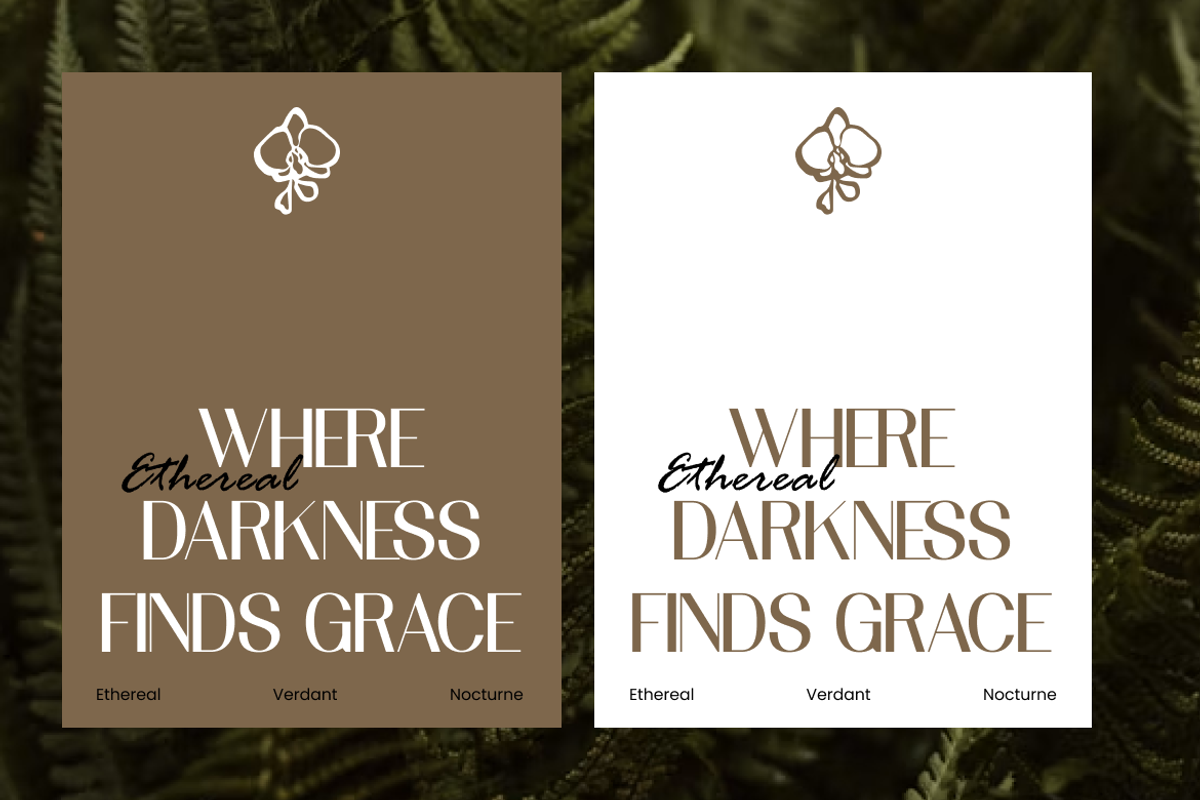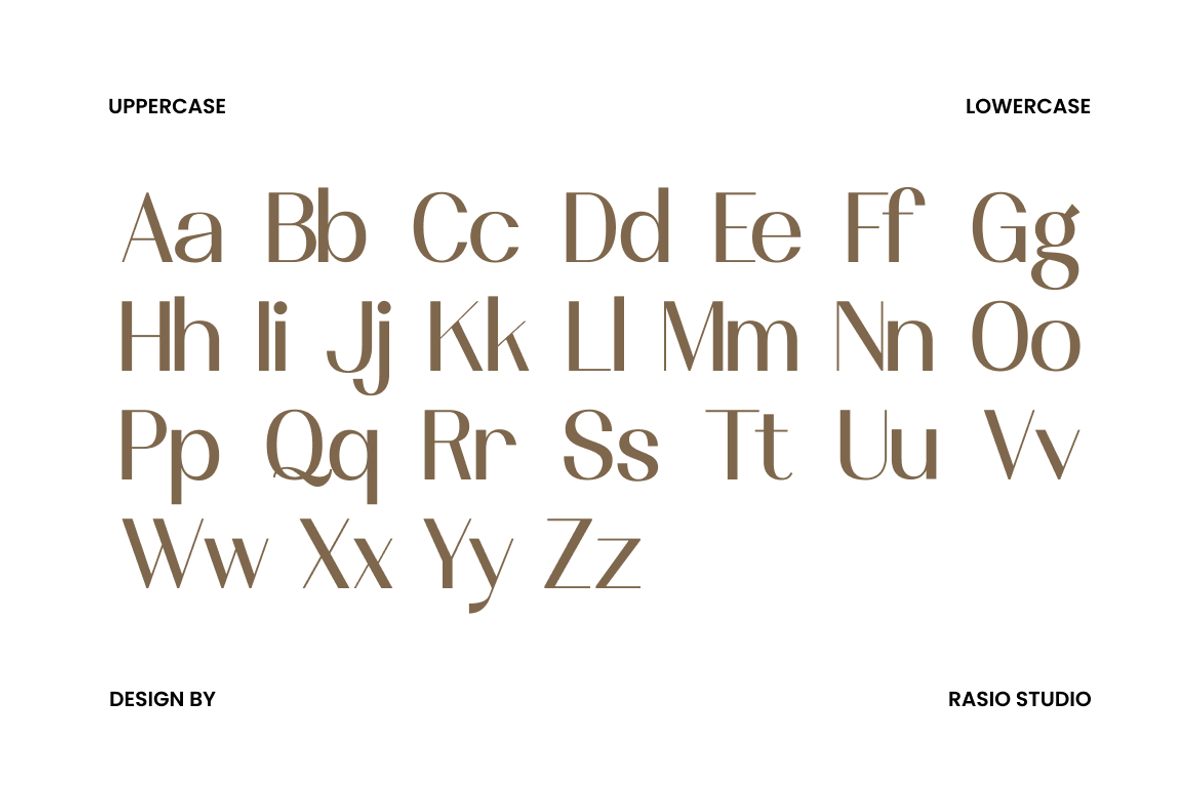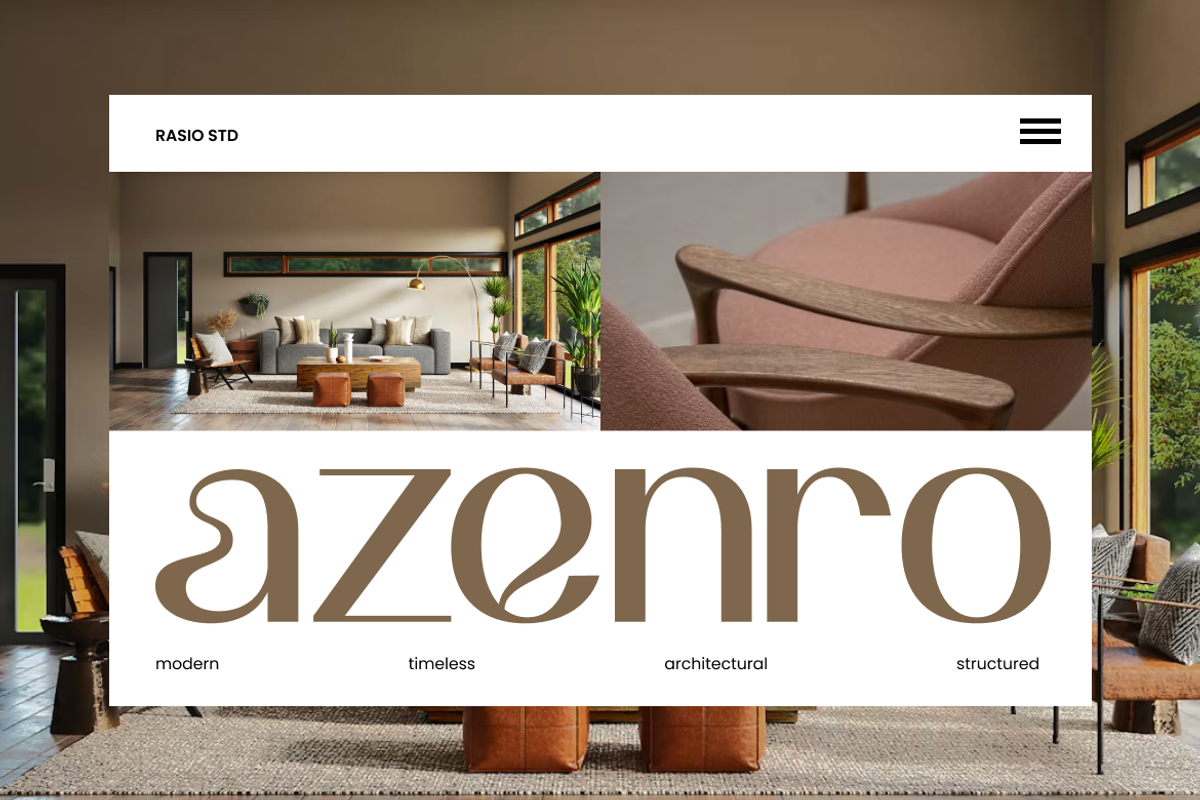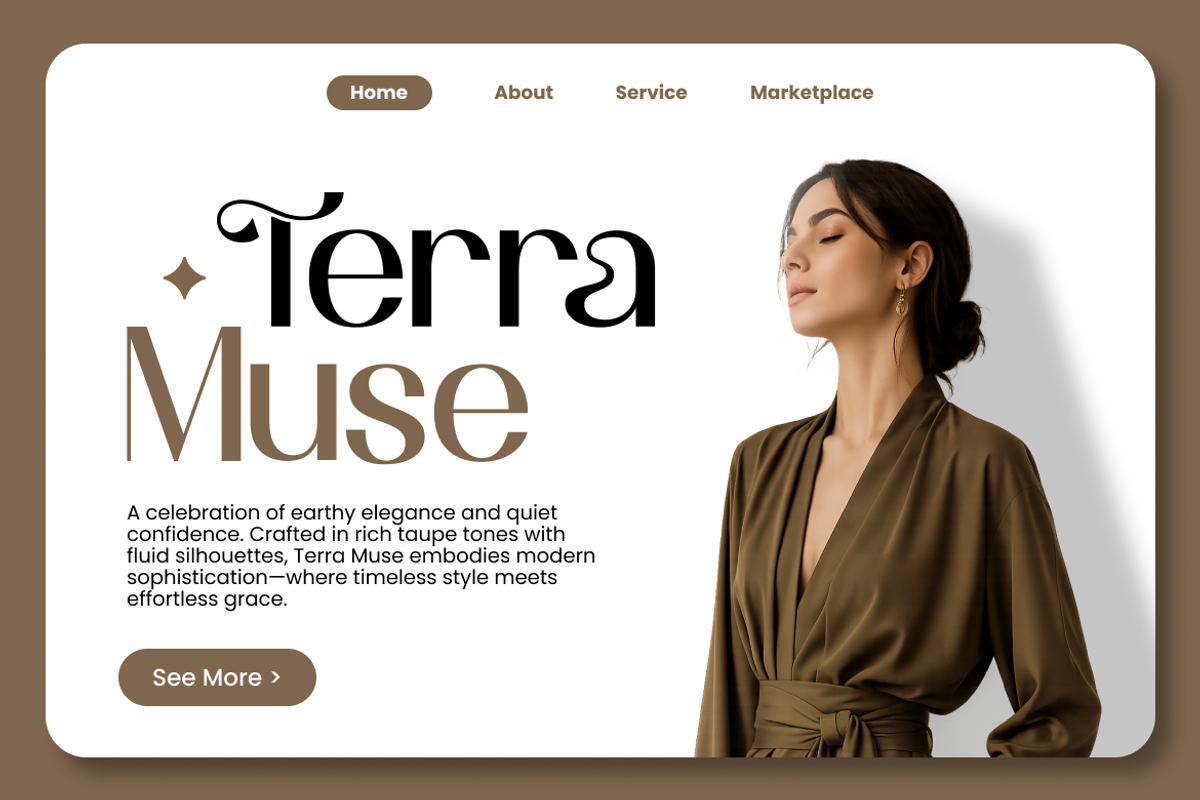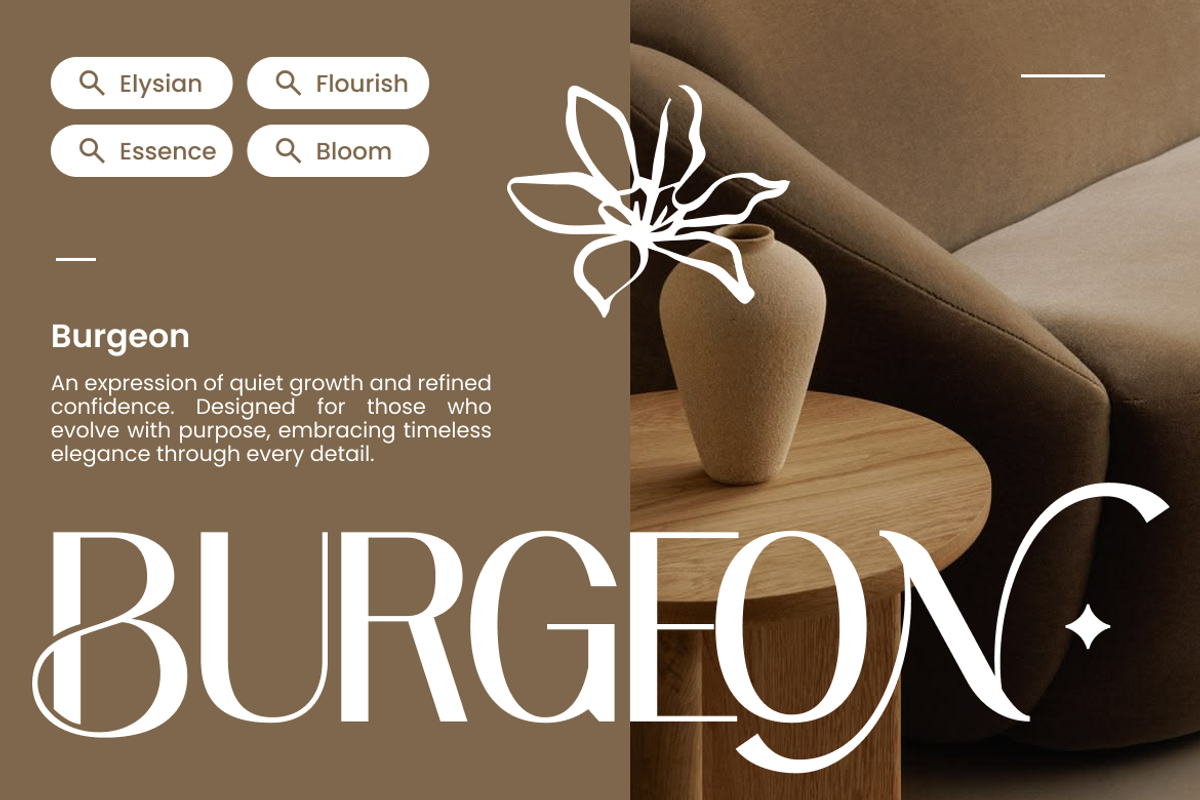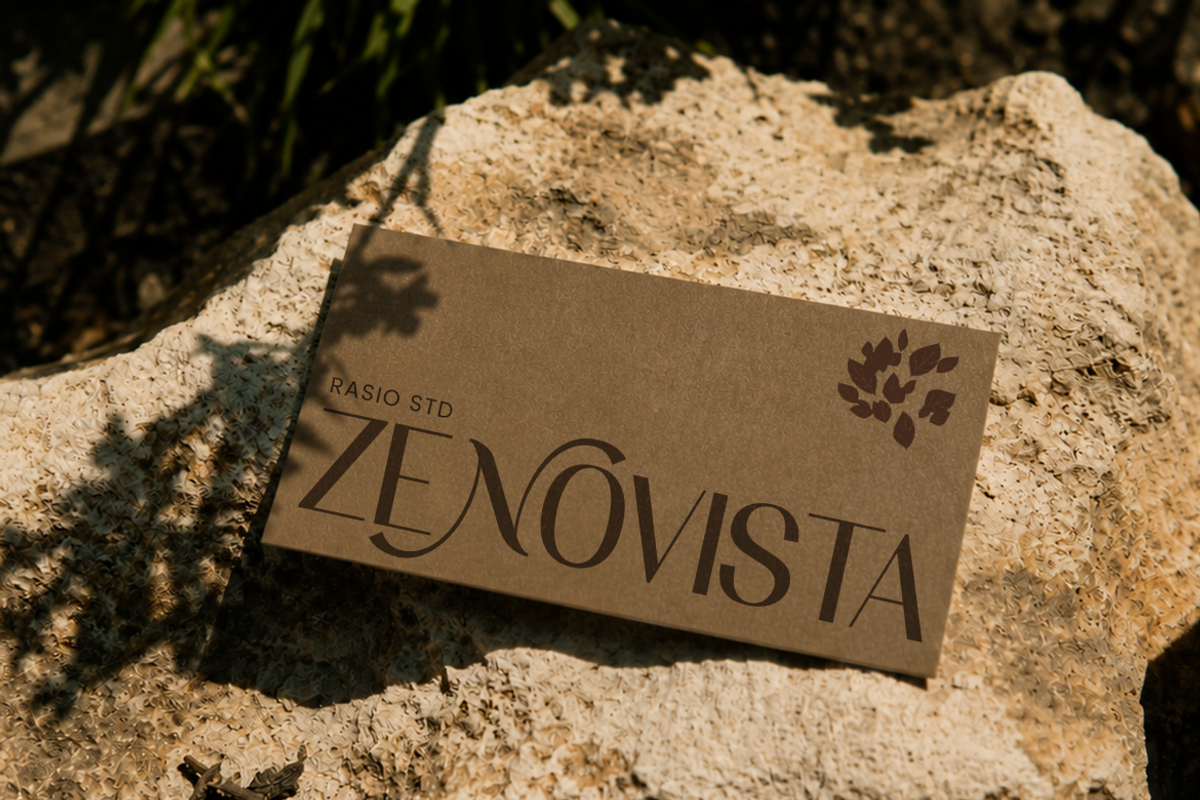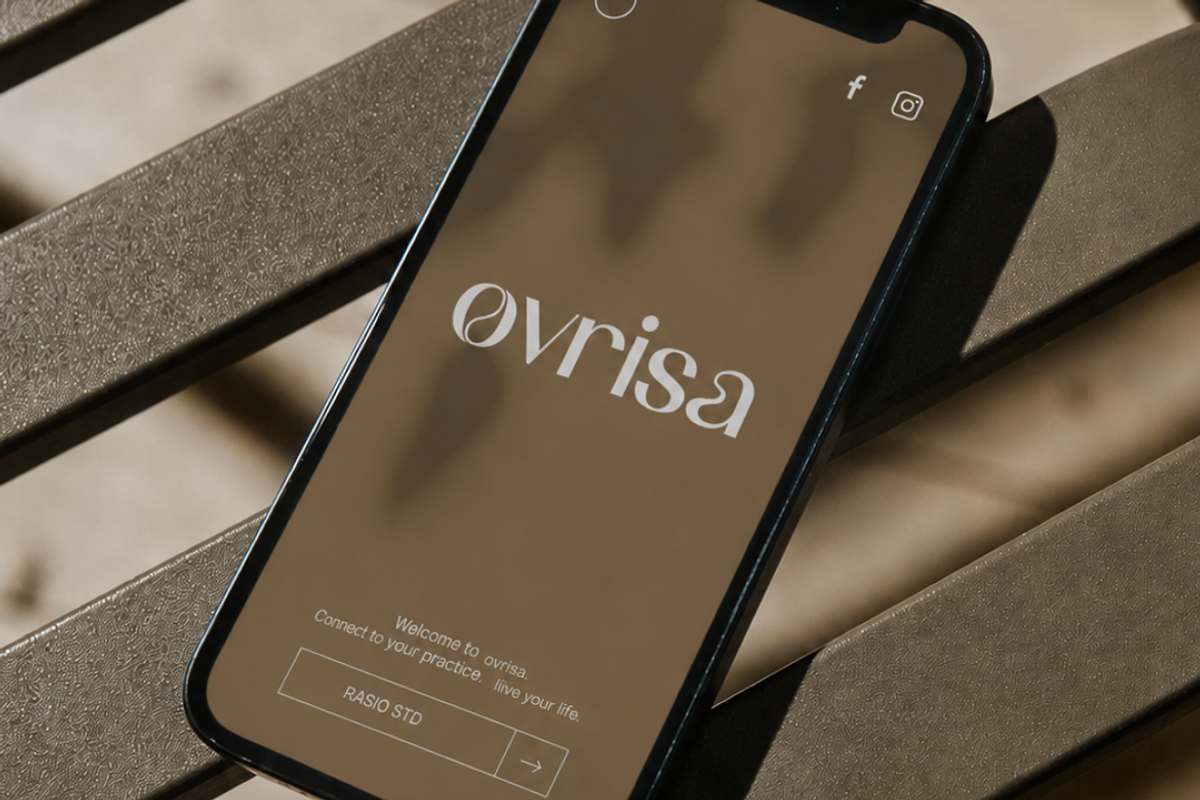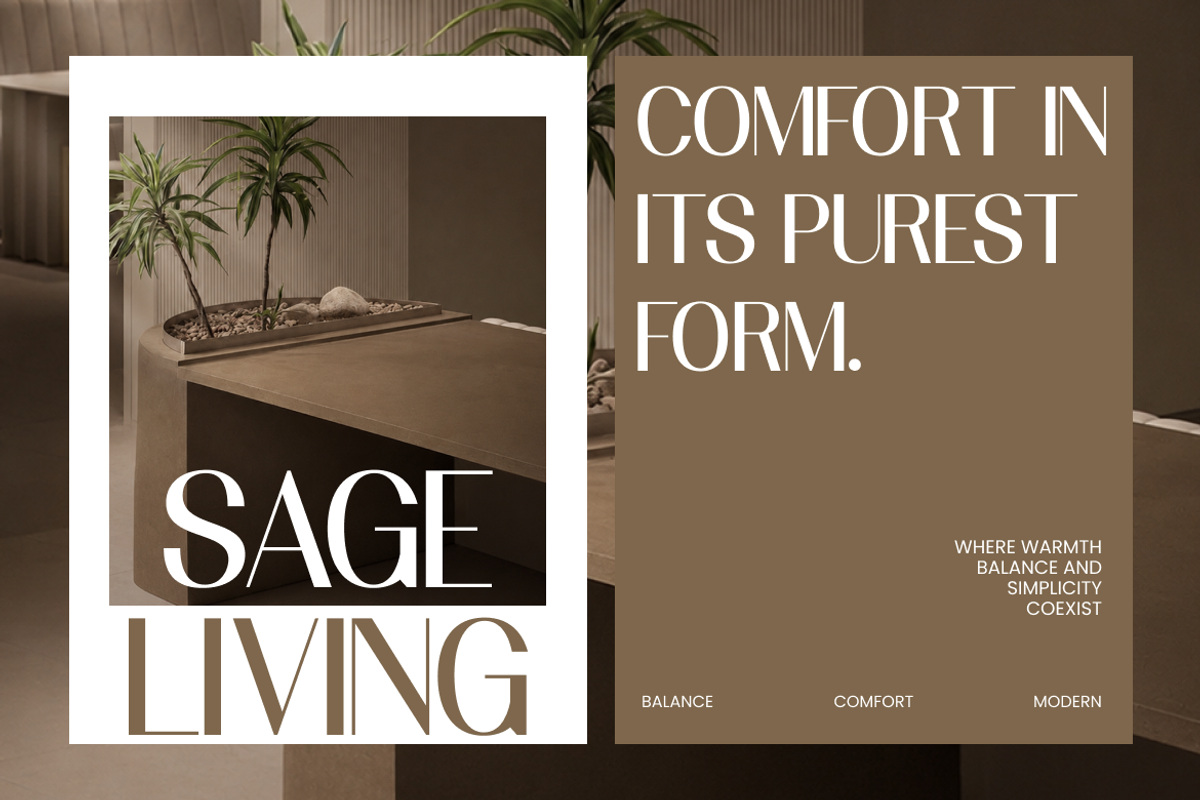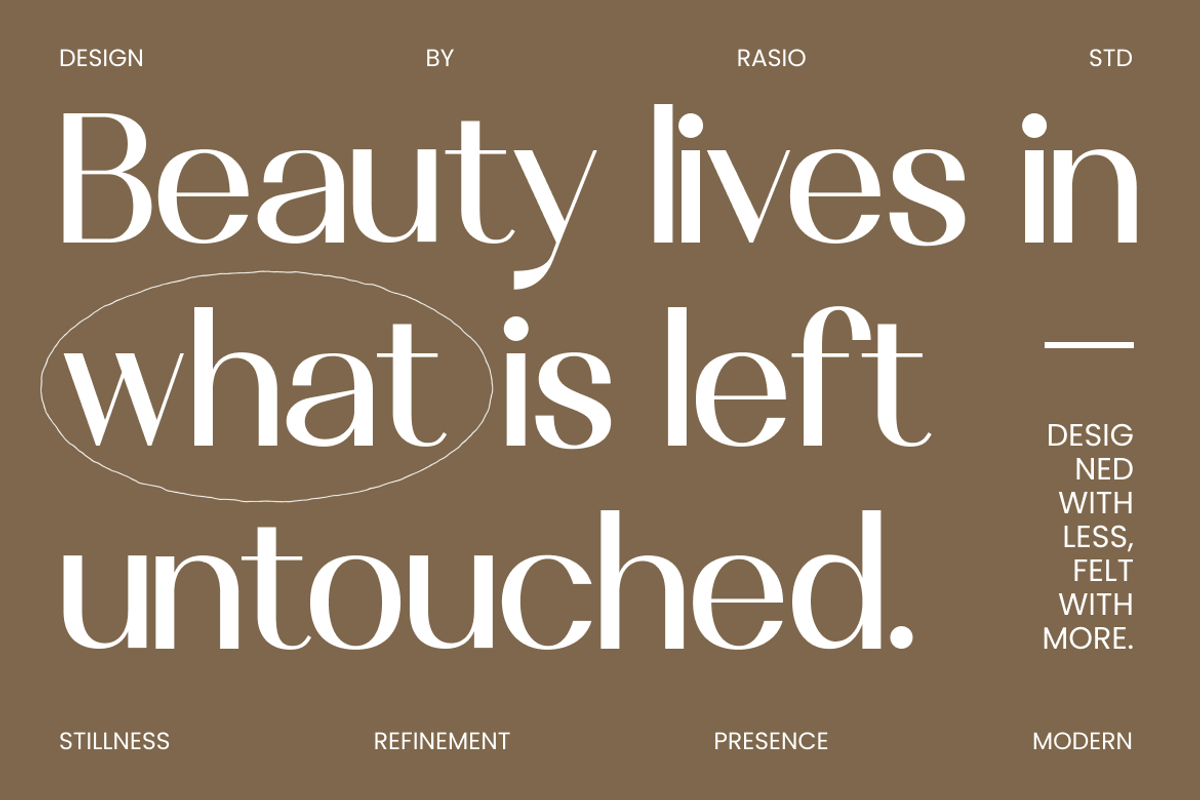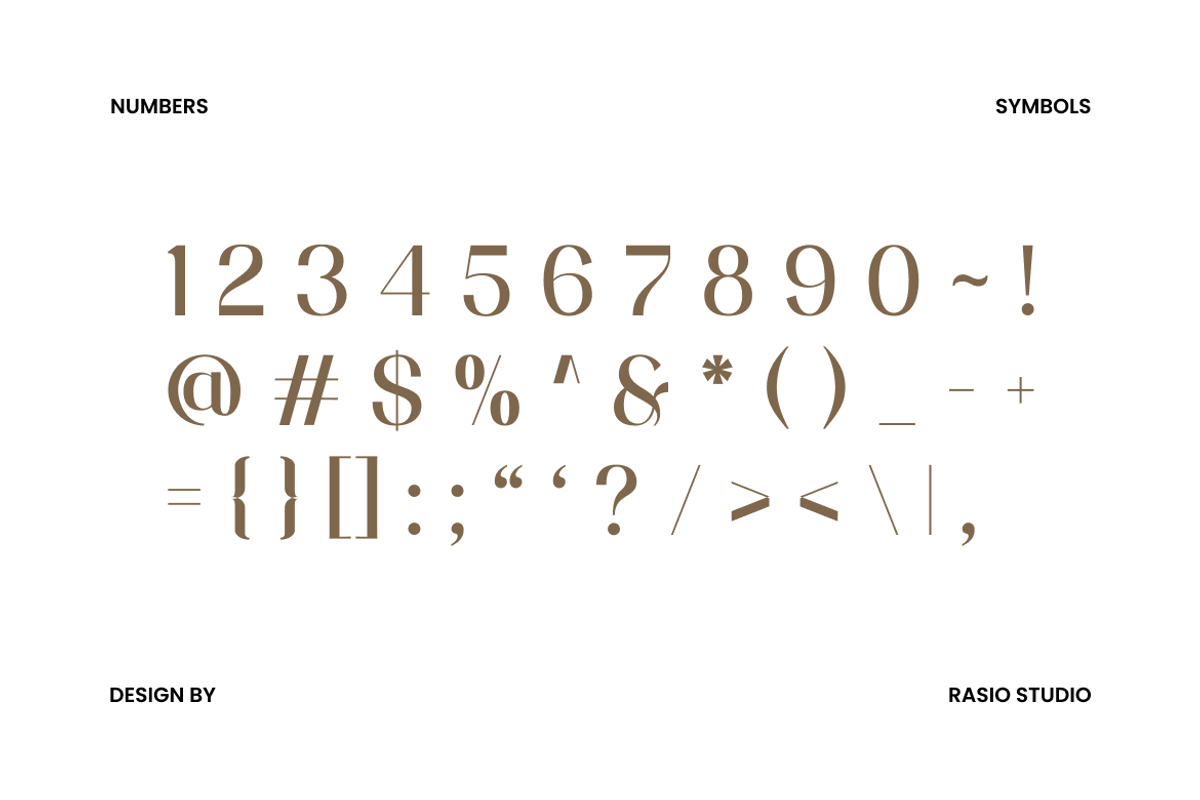
Vermica Modern Elegant Sans Font
Vermica Modern Elegant Sans Fontis a refined contemporary typeface that combines clean geometric construction with graceful high-contrast proportions to create a sophisticated visual identity. The letterforms feature slender vertical strokes, subtly tapered terminals, and smooth rounded curves that produce an elegant rhythm while maintaining exceptional clarity. Carefully balanced proportions, generous counters, and precise spacing allow each character to stand confidently in both large display settings and refined branding applications, giving the typeface a luxurious yet highly versatile personality.
Designed for premium visual communication, Vermica includes uppercase and lowercase characters, numerals, punctuation, and stylistic ligatures, providing the flexibility required for professional creative projects. Its modern structure and elegant detailing make it ideal for luxury branding, editorial publications, fashion campaigns, cosmetic packaging, logo design, website typography, invitations, and high-end marketing materials. Whether used for sophisticated headlines, minimalist visual identities, or premium digital experiences, Vermica delivers polished typography with timeless elegance across both print and screen environments..
Elegant high-contrast sans serif with refined contemporary proportions
Gracefully curved letterforms for a sophisticated visual rhythm
Delicate stroke transitions that balance softness with precision
Open counters and generous spacing for luxurious readability
Slim vertical structure with smooth terminals for a clean premium appearance
Luxury brand identities for fashion, jewelry, cosmetics, and beauty businesses
Editorial magazines, lookbooks, and premium publishing projects
Elegant logo design, boutique branding, and signature visual identities
High-end product packaging, perfume labels, and premium stationery
Wedding invitations, event branding, and sophisticated celebration materials
Screen-optimized kerning for responsive web design
Supports numerals, punctuation, and extensive symbol set